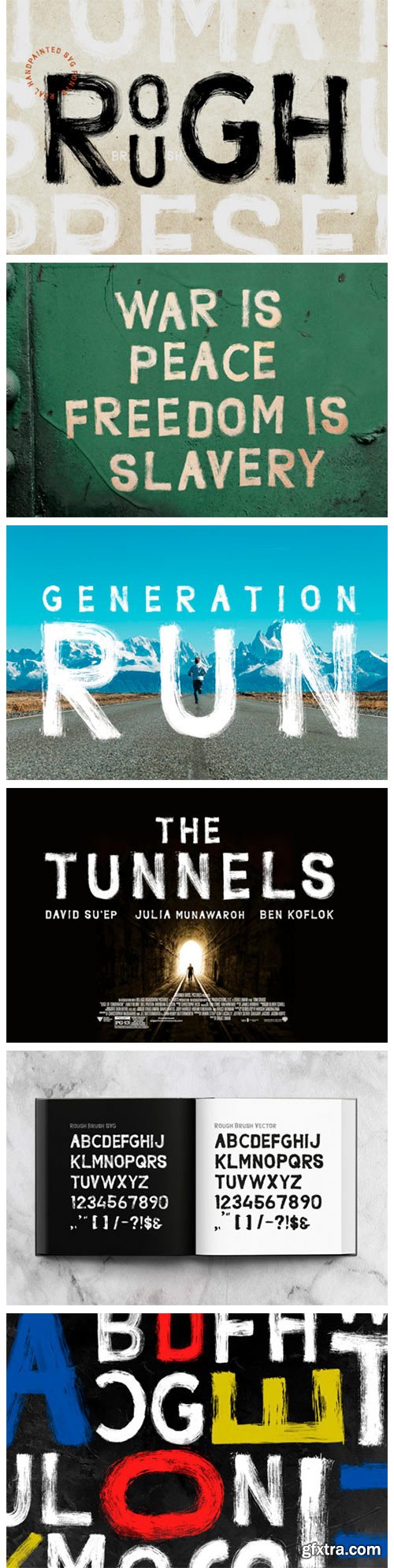
Rough Font
Rough is a bold and incredibly unique display font. It features simple and chunky characters and as a result, it will match a wide range of designs. The only limit is your imagination!